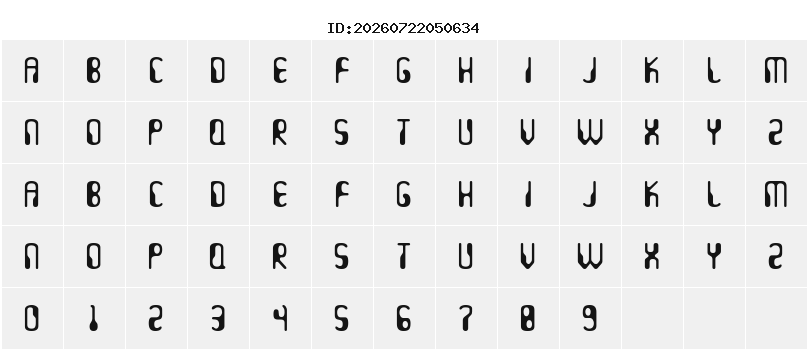
• Font Name: Hydrogen Whiskey
• Designer: Ray Larabie
• Manufacturer: Ray Larabie
About Hydrogen Whiskey.ttf
Hydrogen Whiskey.ttf is a modern, elegant sans-serif font designed for ultimate readability and visual harmony. Perfect for branding, headlines, web design, and print materials.